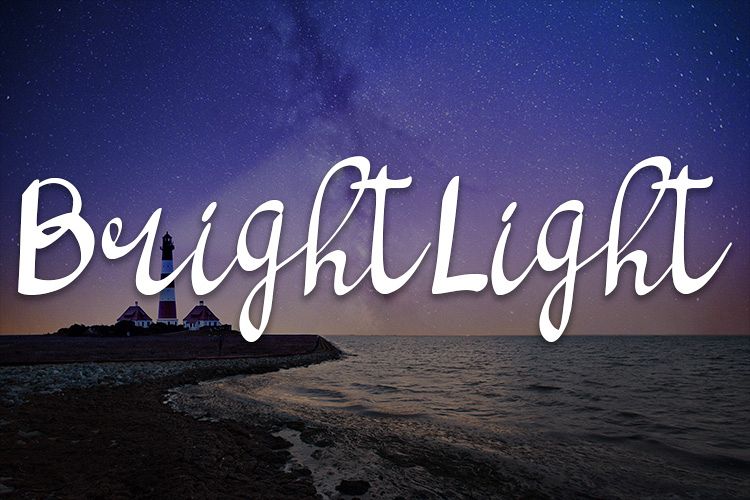
bright light script handwritten font
Bright Light is a beautiful simple handwritten script font. It has a good readability which will look gorgeous on your design, invitations, quotes, banners, covers, and much more!